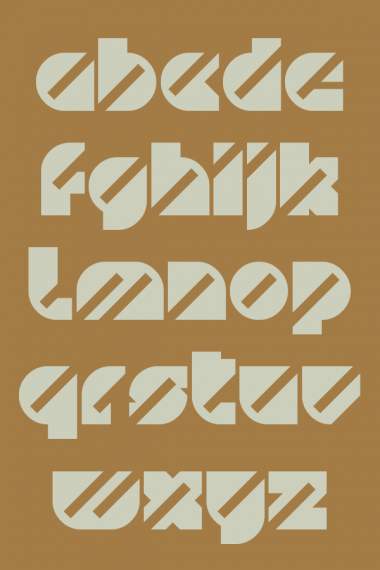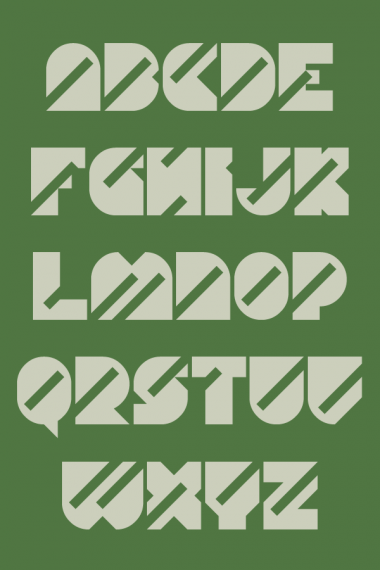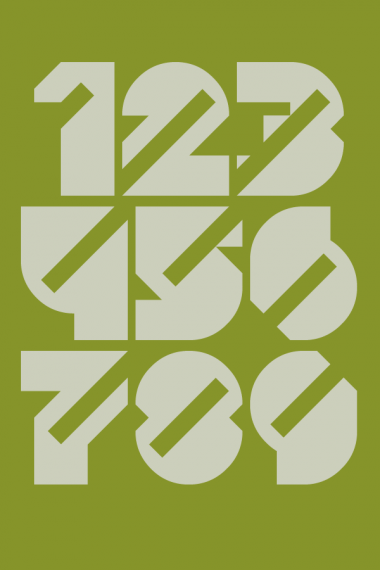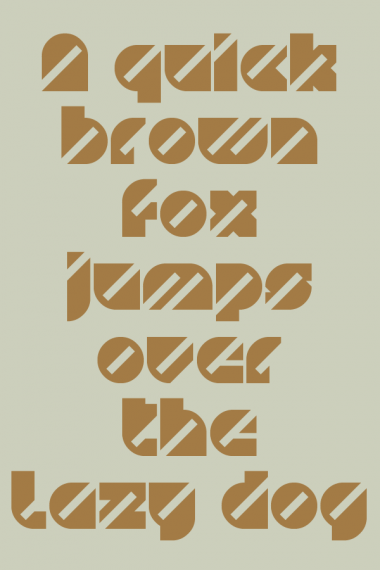
Awesome. Being a judge, you're probably not allowed to enter the comp, right? That's a pity...
Awesome! Would the C work better if you extended the bottom part all the way up?
Very inventive. It takes a lot of technique to make something look (relatively) simple.
@p2pnut: thanks, it needed lots of composites indeed.
@Yautja: thanks, I changed both c and C.
@laynecom: thanks, next time again...
Congratulations! FontStruct Staff have deemed your FontStruction worthy of special mention. “ollivander” is now a Top Pick.
If you are a judge, how did you enter the other fonts?
@meek: thanks for the Top Pick!
@h1k765: I was asked to be a judge on the inline comp, so I can't enter this time around. You are probably thinking of fontstructions which I entered in the previous two competitions. I wasn't a judge on those.
Stylish as always!
Congrats! Great font! It reminds me the superb 70's style of these memorable kind of fonts like "Traffic" by Letraset and others. Good times!
Your sample are always so good. I always try to do them like yours, but they never come out as good. How do you do them? Im only 12 but I still want to know.
wow very creative
love it
Samples are awsome
Thanks everyone!
"The wand chooses the wizard." Simple, yet very pretty design. The diagonal cuts enhance the letters' disposition well, and make the overall look consistent. Nice samples. Ten points for Gryffindor. 10/10
@Frodo7: Thanks, it is always a pleasure to receive a comment from you, this one is very witty!